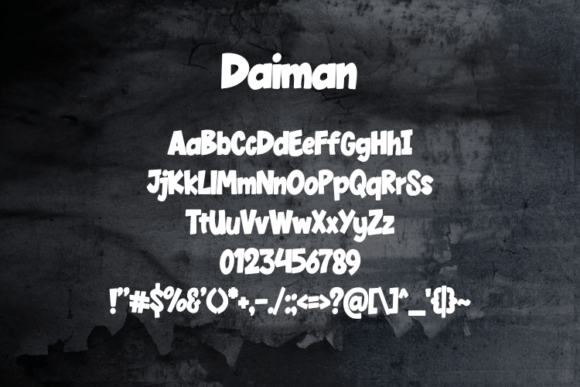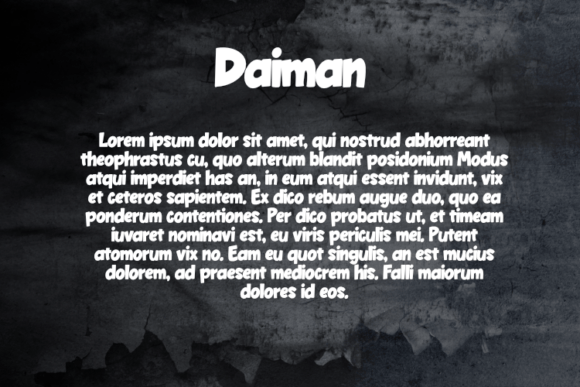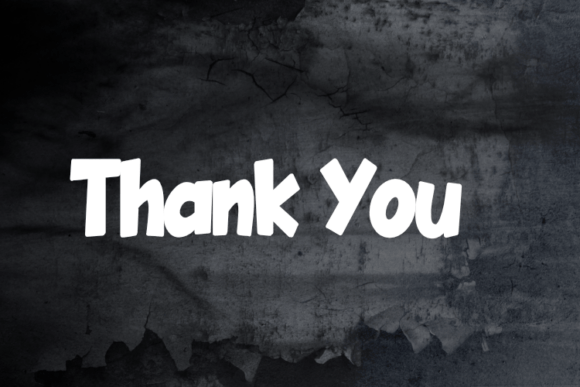
Introducing Daiman: The Ultimate Font for Creative Design Projects
In the world of design, fonts play a crucial role in bringing ideas to life. A well-crafted font can elevate a design from ordinary to extraordinary, making it essential for designers and crafters to have a reliable and versatile font in their toolkit. This is where Daiman Font comes into play, an innovative font designed with versatility and creativity at its core.
The Birth of Daiman: A Font for the Creative Community
Daiman Font is the brainchild of a team of designers who sought to create a font that would cater to the diverse needs of the creative community. Whether you’re a professional designer or a crafty DIY enthusiast, Daiman is the perfect ally for any design endeavor. Its unique design ensures that it stands out from the crowd, making it an excellent choice for those looking to add a touch of personality to their projects.
One of the key features that set Daiman apart is its incredible versatility. This font is not limited to just one type of project; it can be used across a wide range of applications. From eye-catching designs on clothing and t-shirts to stunning visuals on posters, flyers, and digital media, Daiman adapts seamlessly to any design need. Its flexibility makes it an indispensable tool for designers who work on various projects and need a font that can keep up.
Designed for Impact
Daiman Font is more than just a pretty face; it’s designed to make an impact. Its stylish and modern aesthetic ensures that your designs grab attention and leave a lasting impression. Whether you’re working on a commercial project or a personal craft, Daiman helps you achieve professional-looking results with ease. The font’s clarity and readability make it perfect for both digital and print applications, ensuring your message is conveyed effectively across different mediums.
Embracing Flexibility with Daiman
The design world is all about flexibility and creativity. With Daiman Font, you can explore a multitude of design possibilities without being limited by your font choices. Its availability in a user-friendly format means you can easily incorporate it into your workflow, experiment with different designs, and push the boundaries of your creativity. Daiman encourages you to embrace flexibility and explore new horizons in your design projects.
Why Choose Daiman Font?
- Versatility: Suitable for a wide range of design projects, from clothing to digital media.
- Creativity: Designed to inspire creativity and bring unique ideas to life.
- Impact: Crafted to make your designs stand out and leave a lasting impression.
Daiman Font is more than just a font; it’s a design companion that empowers you to create with flexibility and flair. Its versatile nature, combined with its stylish design and compatibility across all software, makes it an invaluable asset for designers and crafters alike. Whether you’re embarking on a commercial project or a personal crafting endeavor, Daiman is the go-to choice for effortless and impactful design. Embrace flexibility, and let Daiman guide you in unlocking new levels of creativity and innovation in your design journey.